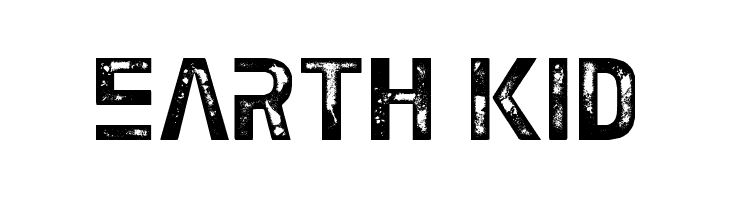
A bold, geometric font with rounded edges and a modern, blocky style.
A bold, expanded italic font with a modern, dynamic style.
A bold, semi-italic, expanded font with a modern and dynamic style.
A bold, italic, and expanded font with a modern, dynamic style.
A bold, italicized font with a modern, dynamic style and geometric structure.
A bold, modern font with geometric, slanted characters for a dynamic look.
A bold, semi-italic font with a modern and dynamic style.
A bold, geometric font with a modern, slanted style.
A bold, geometric font with rounded edges and a modern style.
A bold, italicized font with a modern, dynamic style.
A bold, semi-italic font with a futuristic and dynamic style.
A bold, italicized font with a modern, dynamic style and tight spacing.
A bold, italic font with a dynamic and geometric style.
A bold, geometric, and slanted font with a modern and dynamic style.
A dynamic and elegant script font with flowing, cursive letterforms.
A dynamic handwritten font with fluid strokes and a casual, energetic style.
A lively, cursive font with fluid strokes and a handwritten charm.
Bold, rugged display font with blocky, distressed forms.
A cursive, handwritten font with a casual and elegant style.
A bold, playful, hand-drawn font with a whimsical style.
A playful, brick-patterned font with a bold, three-dimensional effect.
A bold, brush-style font with dynamic, expressive strokes.
A playful, casual handwritten font with irregular strokes.
A playful, handwritten font with a bold and casual style.
A playful, hand-drawn font with bold, rounded strokes and a casual vibe.
Heraldic shield icons with medieval and fantasy motifs in bold black-and-white.
A bold, jagged font with a horror-themed, unsettling aesthetic.
An ornate, gothic-style font with elaborate serifs and decorative elements.
A playful, bold handwritten font with an informal and friendly style.
A bold, expressive script font with calligraphic flair and flowing strokes.
A whimsical, curly font with playful spiral embellishments.